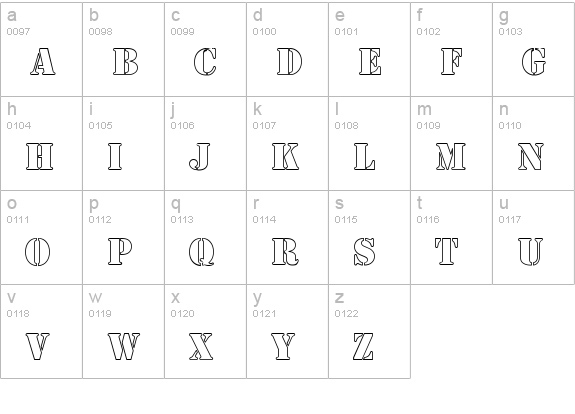
Army Hollow Condensed Font Details
Army Hollow Condensed is a distinctive, condensed-width variant in the Army typeface family \xE2\x80\x94 well suited to design and typography projects.
Army Hollow Condensed font is a sleek and modern typeface that exudes strength and power. Its bold, condensed design makes it perfect for projects that require a strong and impactful presence. The sharp angles and clean lines of this font give it a distinctive and commanding appearance, making it ideal for military-themed designs, posters, and branding materials. What sets Army Hollow Condensed font apart is that it is available for free download at FontsMarket.com. This means that you can easily access and use this powerful font in your projects without any cost. Whether you're working on a logo, a poster, or any other design project that needs a bold and striking font, Army Hollow Condensed is the perfect choice. Stand out from the crowd and make a bold statement with this impressive typeface that is both stylish and impactful. Download Army Hollow Condensed font for free today and take your designs to the next level.